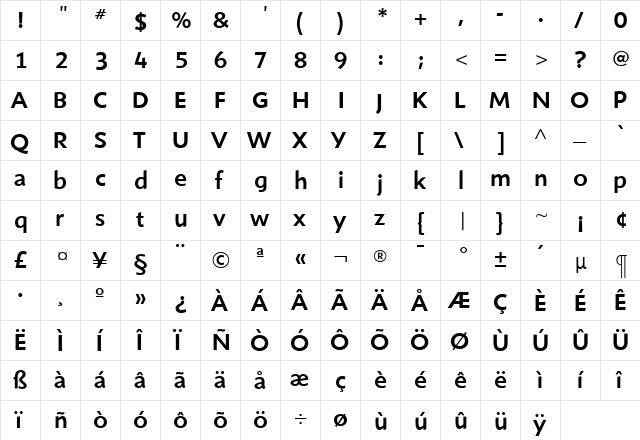
ShinnMedium Regular
| Foundry | Red Rooster Typefounders |
Design Context for ShinnMedium Typeface
ShinnMedium takes a measured approach to typography — its balanced proportions and neutral character make it a reliable workhorse for both digital and print work.